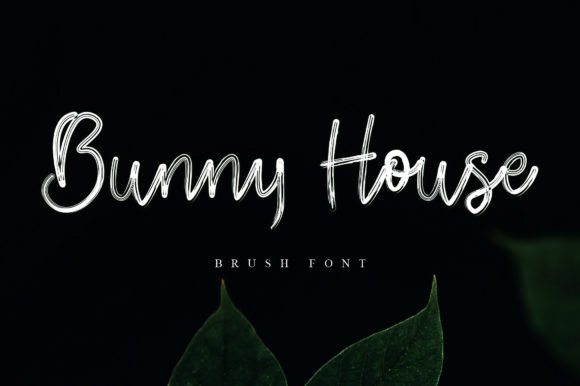
Enter the Bunny House Font, a chic handwritten font with a fun brush texture that’s sure to elevate your designs. With its thin modern calligraphy look, it’s the perfect choice for branding and digital designs. Whether you’re creating a logo, social media post, or business card, the Bunny House Font is a versatile and valuable asset for any designer looking to add a touch of personality to their work.
Bunny House Font Key Features
- Unique Characteristics: Bunny House Font features a whimsical and playful design, making it perfect for children’s books, nursery decorations, and other projects that require a touch of cuteness.
Bunny House Font Review
I was excited to dive into the Bunny House Font, and here’s my honest take.
- Playful and whimsical design: The Bunny House Font has a delightful, hand-drawn feel that’s perfect for adding a touch of personality to children’s books, cartoons, or other creative projects.
- Good legibility: Despite its playful nature, the font is still easy to read, even at smaller sizes.
- Wide language support: The font includes a range of languages, making it a great choice for global projects.
- Limited font weights: The Bunny House Font only comes in a few weights, which may limit its use in more formal or professional projects.
- No italic or bold versions: While the font’s playful design works well in many contexts, there are times when an italic or bold version would be helpful.
- Not suitable for body text: Due to its playful design, the Bunny House Font may not be the best choice for large blocks of body text.
The Bunny House Font is a fun, whimsical choice that’s perfect for adding personality to creative projects. While it has some limitations, its playful design and good legibility make it a great choice for the right projects. I’d recommend it for projects where you want to add a touch of whimsy, but be mindful of its limitations in more formal or professional contexts.
Bunny House Font is ideal for:
- Children’s books and educational materials.
- Playful advertising and marketing campaigns.
- Cute and whimsical website designs.